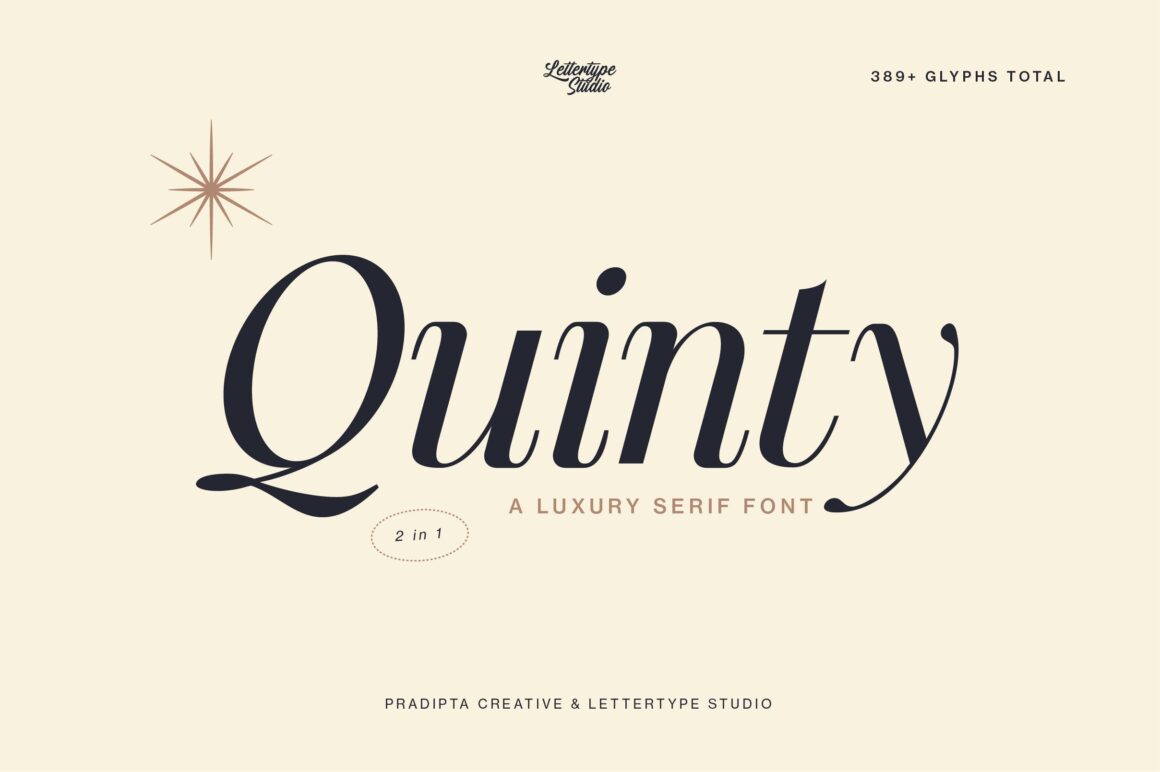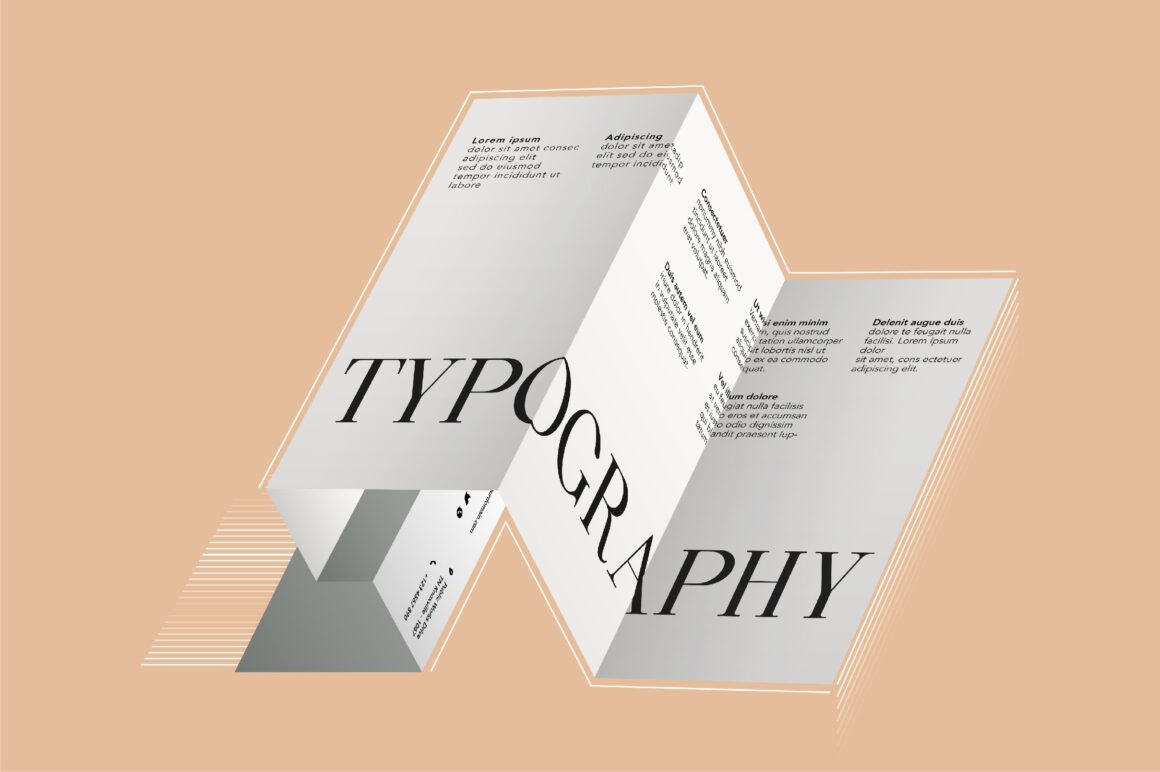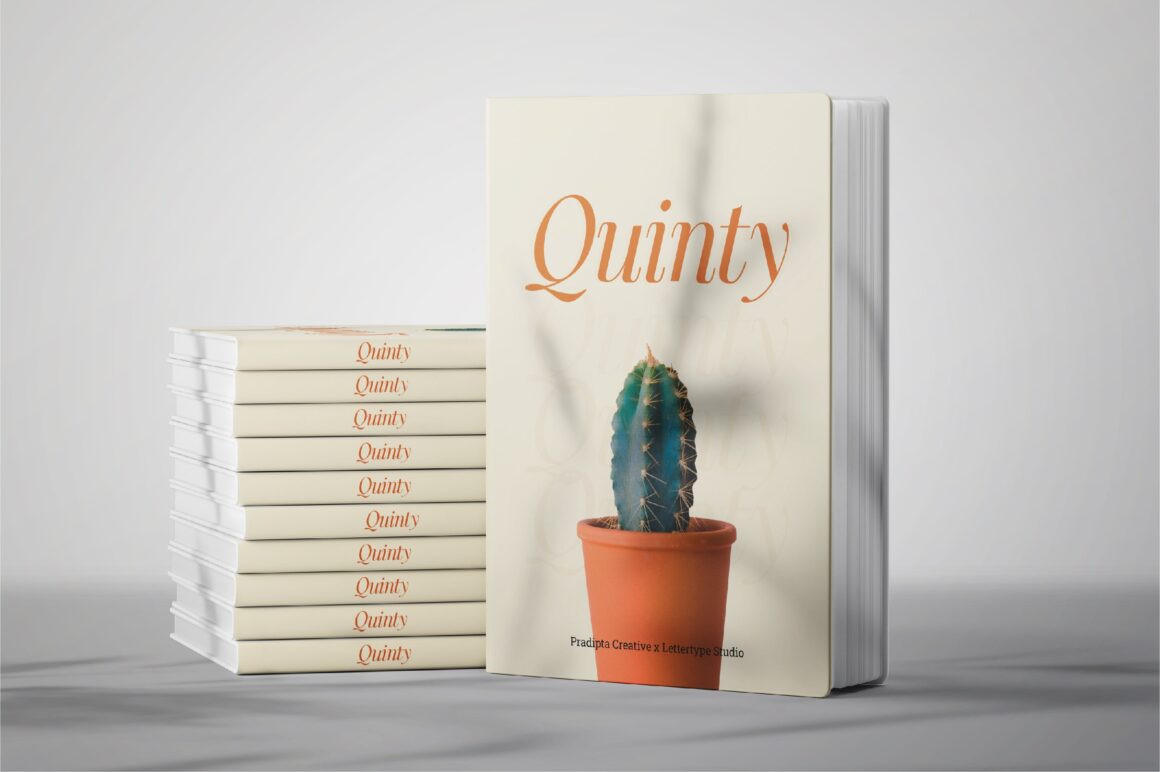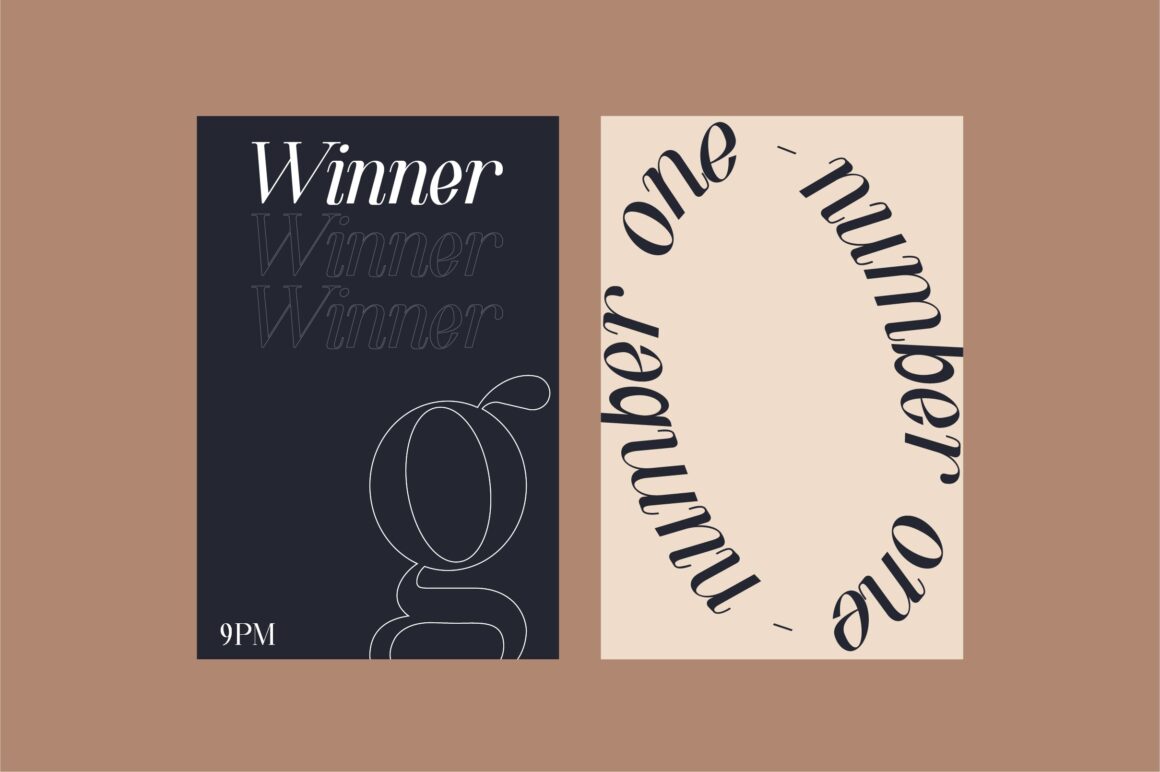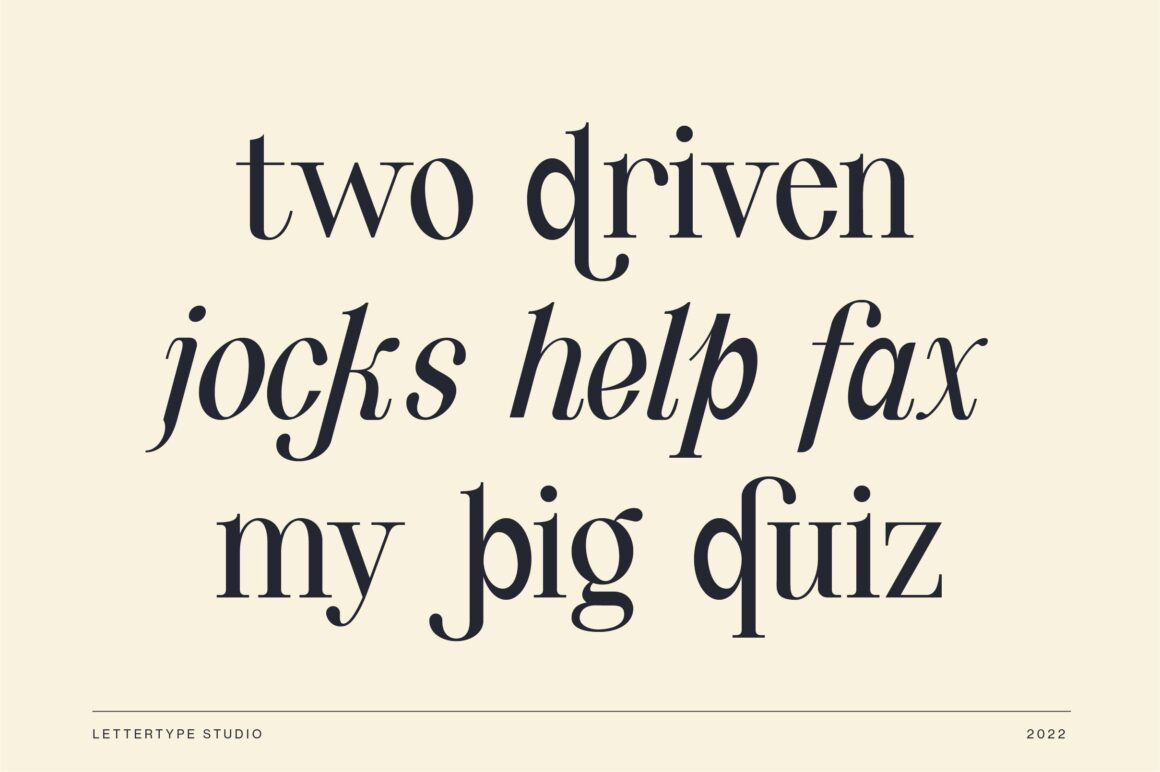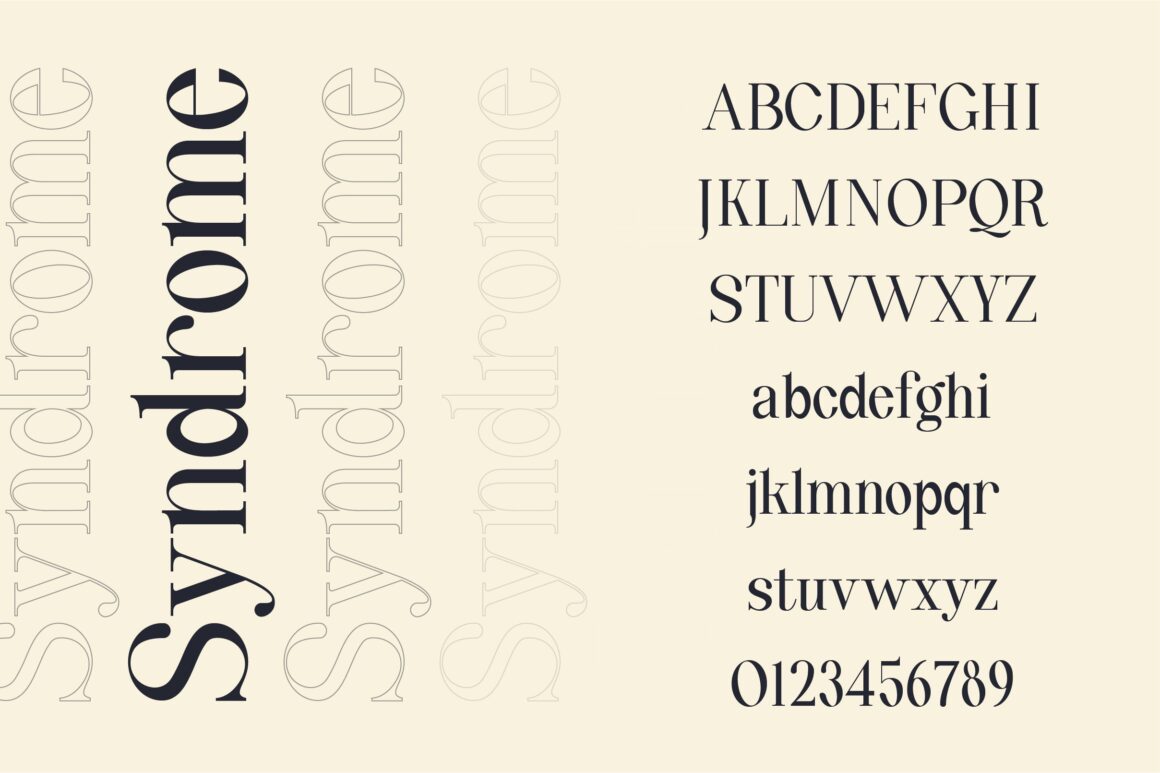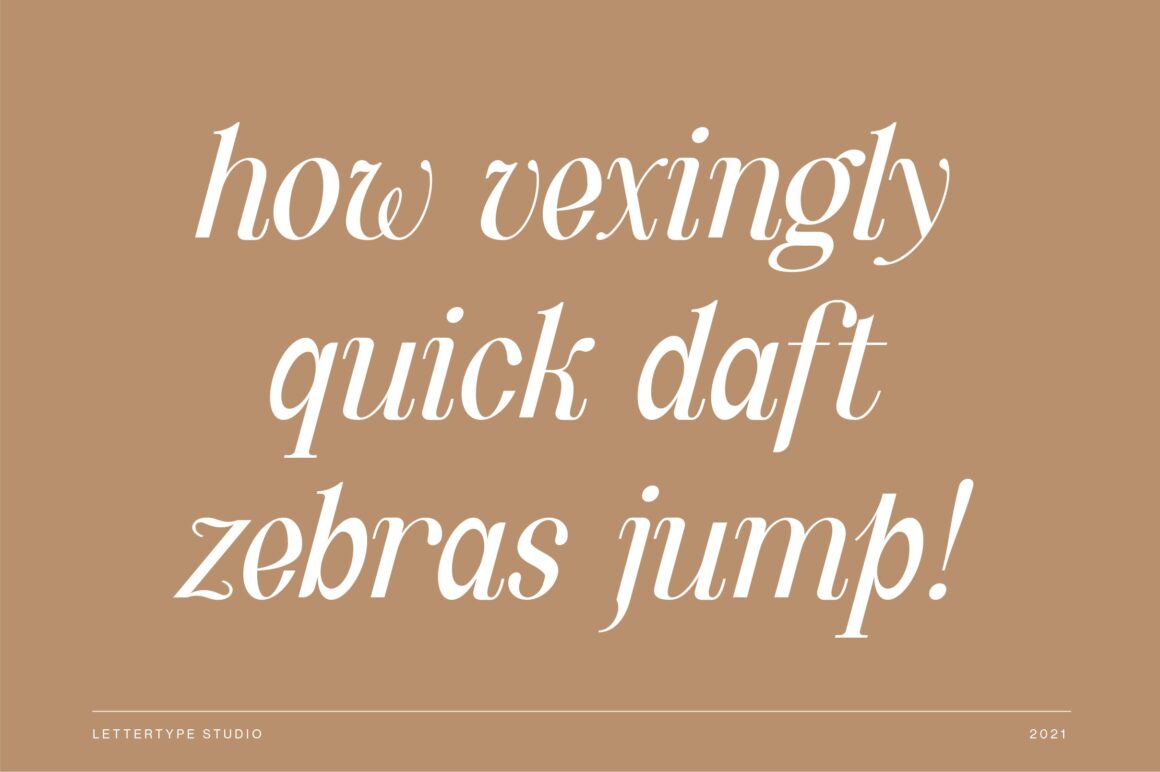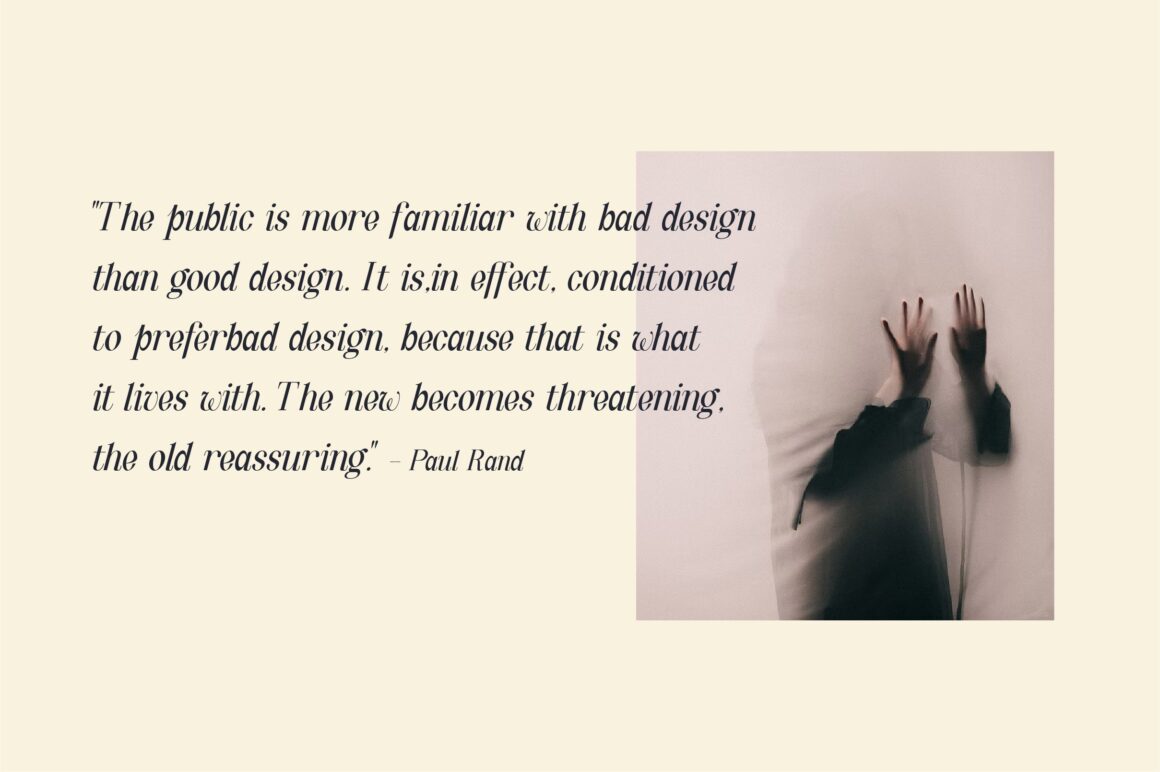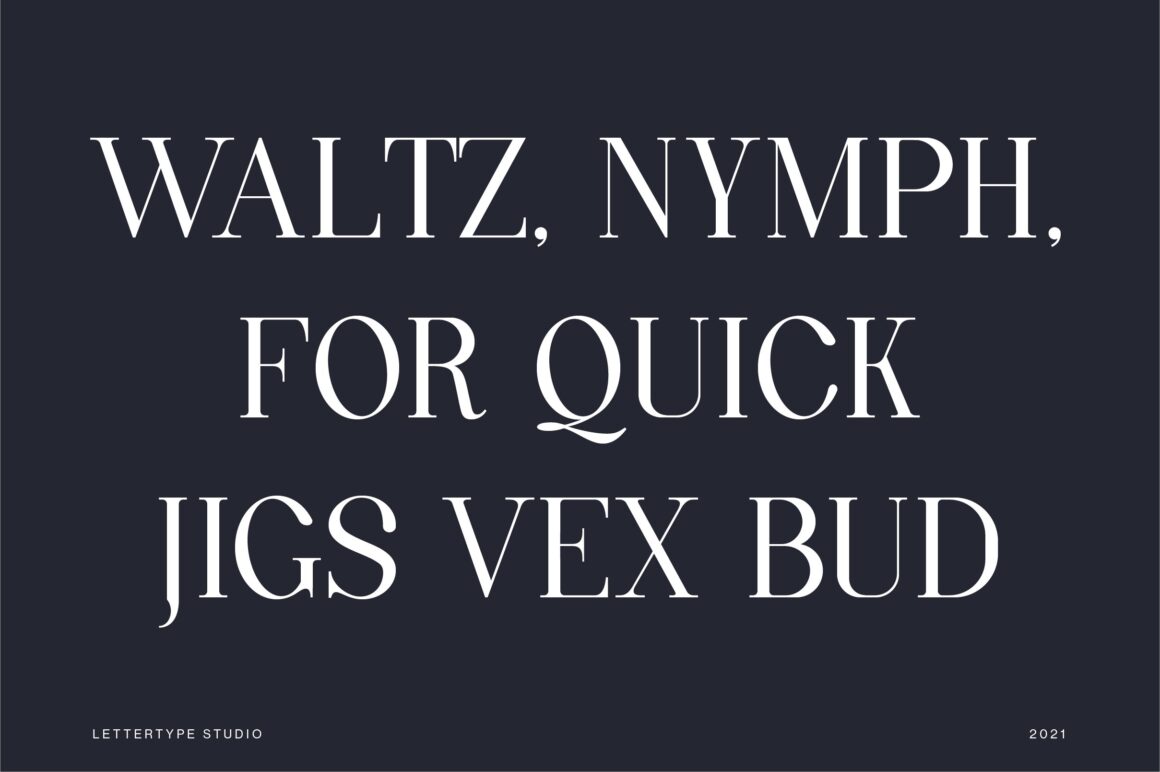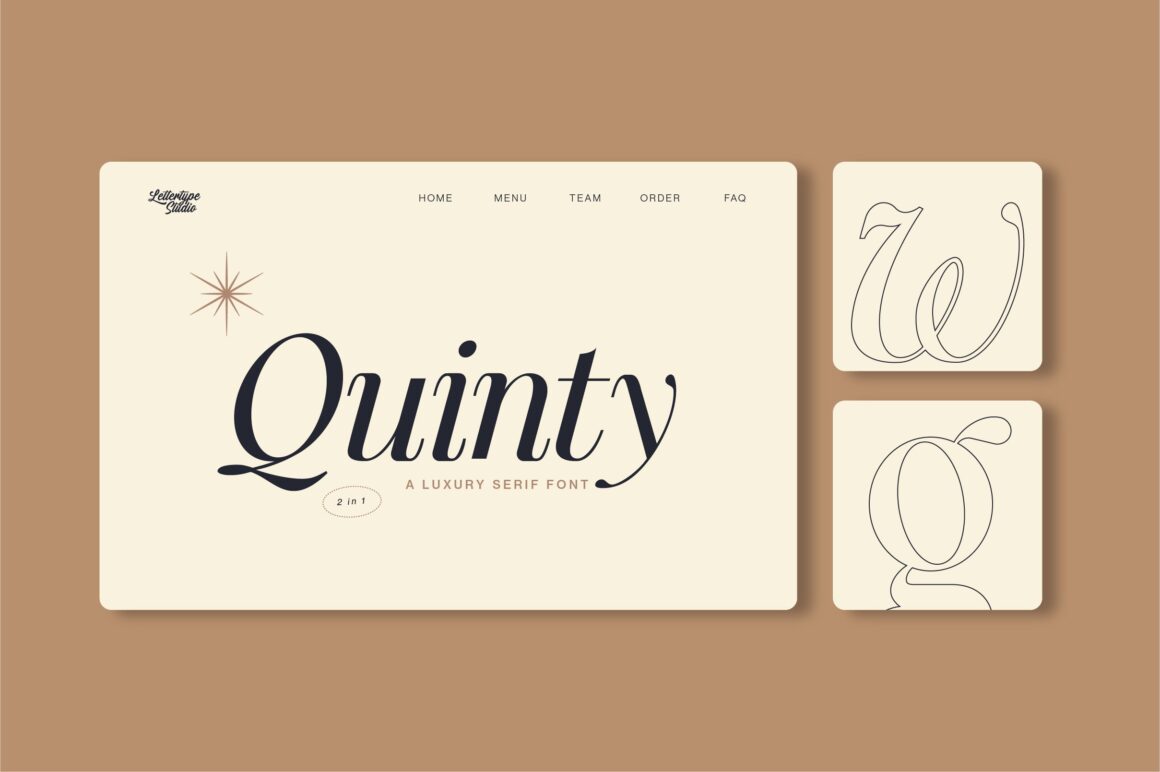
Quinty
Quinty Italic
Quinty is a modern typeface with a classic touch, designed with 389 glyphs for versatile use. Inspired by the old houses in my village, this font reflects timeless vintage charm combined with a sleek modern feel—perfect for projects that need both character and elegance.
From logos, branding, signage, and posters to wedding invitations, fashion, cosmetics, and apparel, Quinty adapts seamlessly to a wide range of creative work. Its unique blend of modern and classic details makes it a powerful choice for giving your brand or project a distinctive, stylish look.
Quinty Features:
• 2 Styles
• Upright & Oblique
• 10 Stylistic Alternates
• 169+ Languages Supports